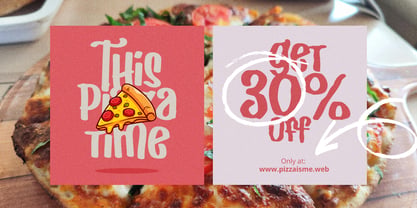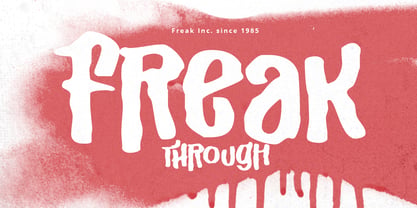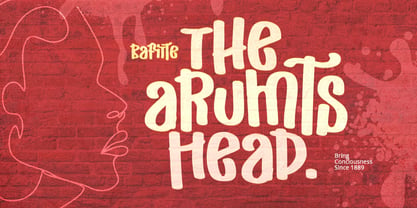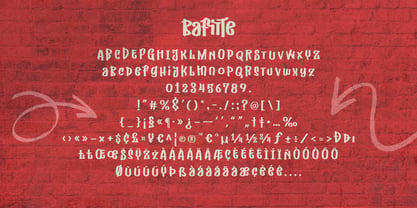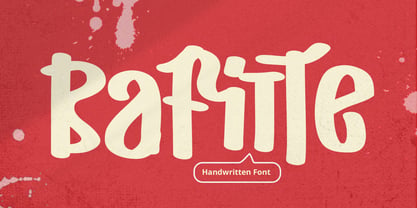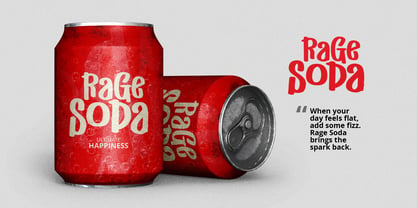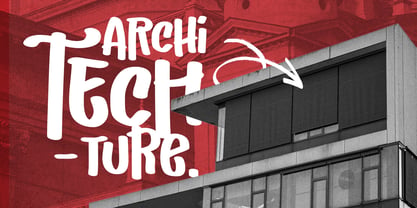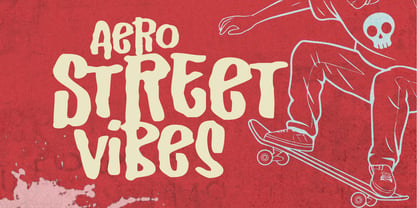
Bafitte
by Grontype
The Bafitte Font Family was designed by Jarnawi Saja and published by Grontype. Bafitte contains 2 styles and family package options. More about this family
Bafitte is a bold urban handwritten font that captures the raw energy of street art. With its modern and expressive strokes, it brings a strong urban vibe to any design. The irregular lines and natural flow give it an authentic, handcrafted feel—perfect for projects that need a touch of attitude and creativity. This font stands out in logo designs, headers, posters, and branding that aim to feel edgy, youthful, and unique. Whether you're building a streetwear brand or creating eye-catching social media graphics, Bafitte delivers a striking visual impact that doesn’t go unnoticed. Thankyou for picking up this font, hope you enjoy it.
Designers: Jarnawi Saja
Current Foundry: Grontype